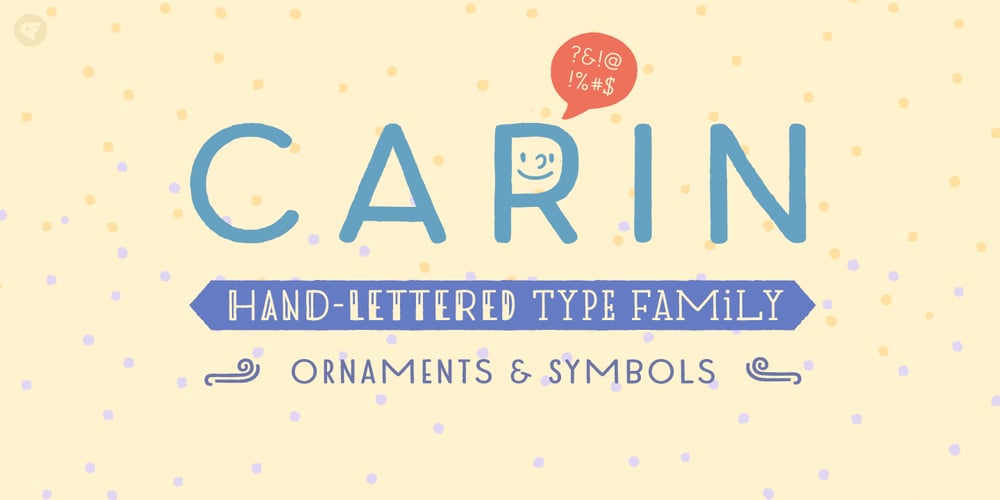
Carin
Carin font
Carin Font Family was designed by Paul Chen and published by Nine Font. Carin contains 11 styles and family package options. Carin is a hand-lettered uppercase type family with both sans-serif and serif styles, including ornaments and symbols. Its characters have been drawn by hand to give them a natural and friendly look. Each style has one basic font with two weights and three decorative fonts (A, B, C). Carin is an emotional type family.